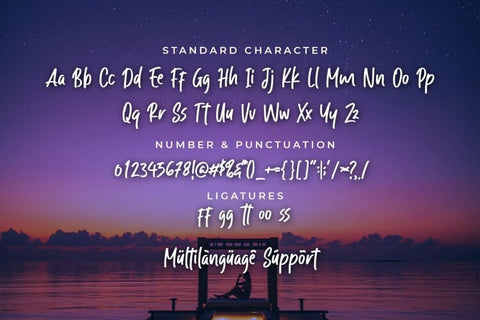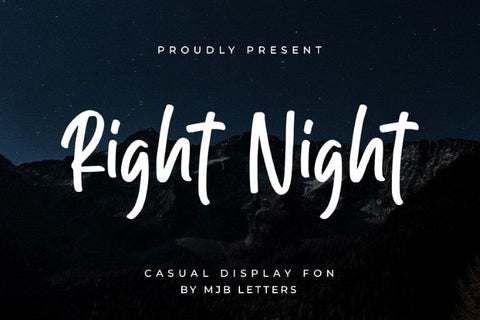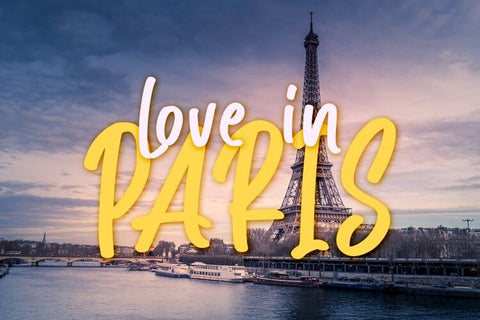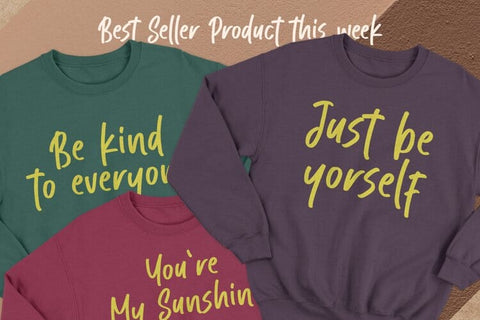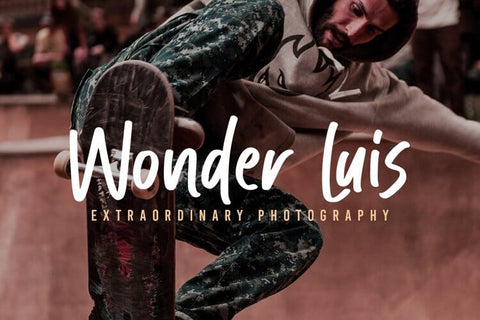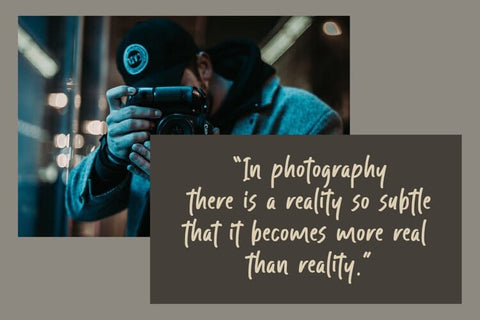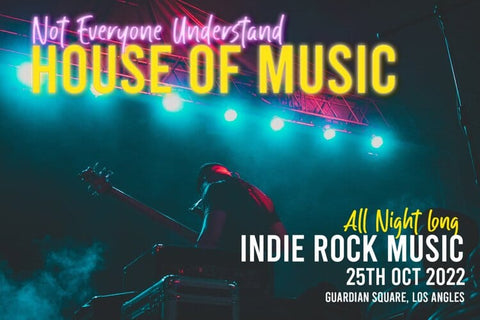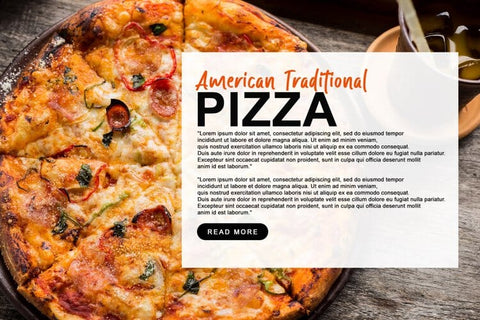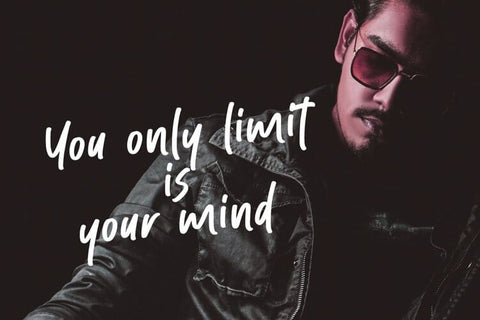
RIGHT NIGHT – DISPLAY FONT
Introducing Right Night is a natural hand brush font with a casual and fashionable style. This font is perfect for quotes, shirt designs, websites, branding, children’s designs, svg designs, blogs, logos, invitations, and more!